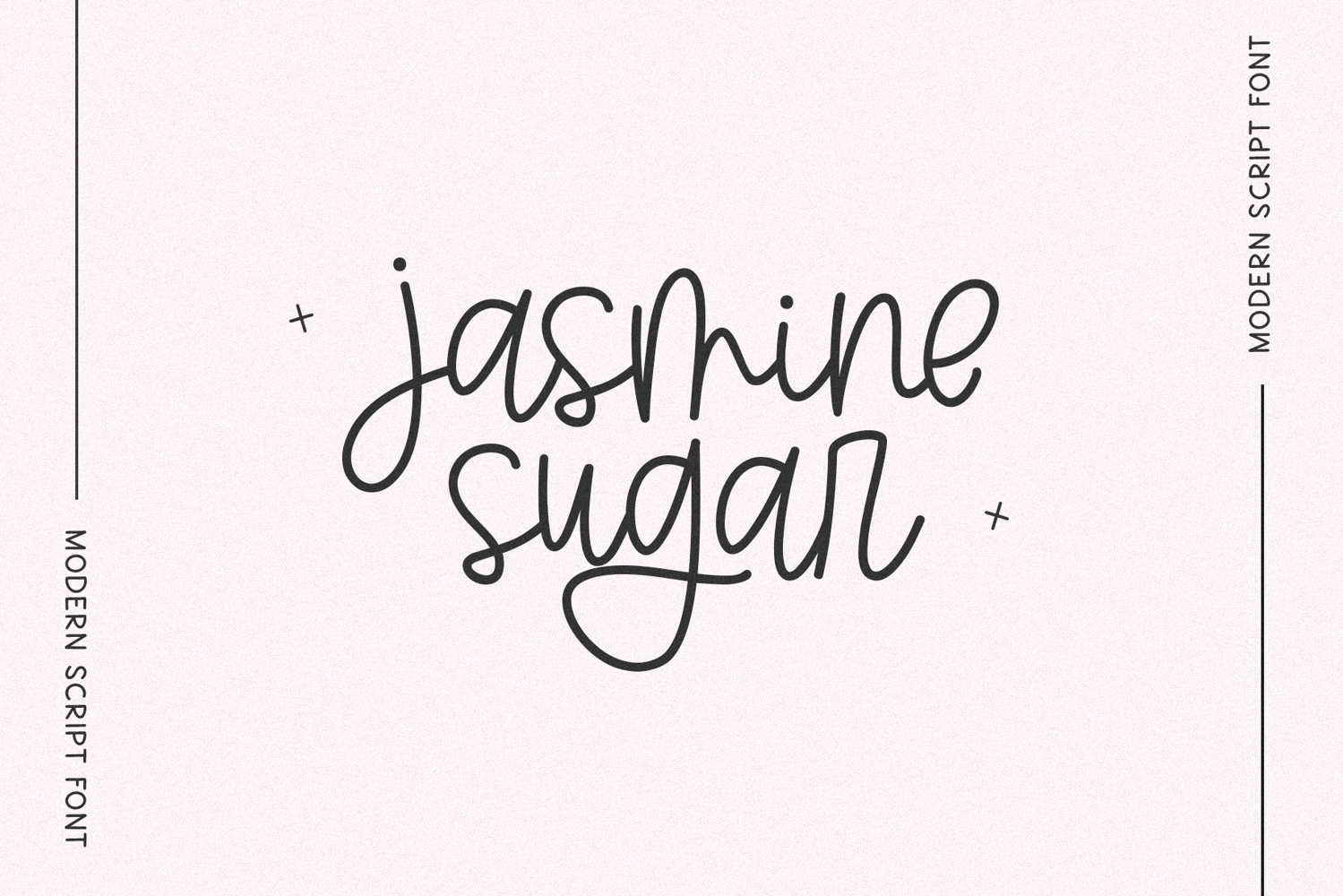
Jasmine Sugar - Modern Script Font
Jasmine Sugar
Jasmine Sugar is a cute handwritten script font.
This font is perfect for farmhouse designs, decor, logos, wedding invitations, banners, canva, cricut projects, planners and more!